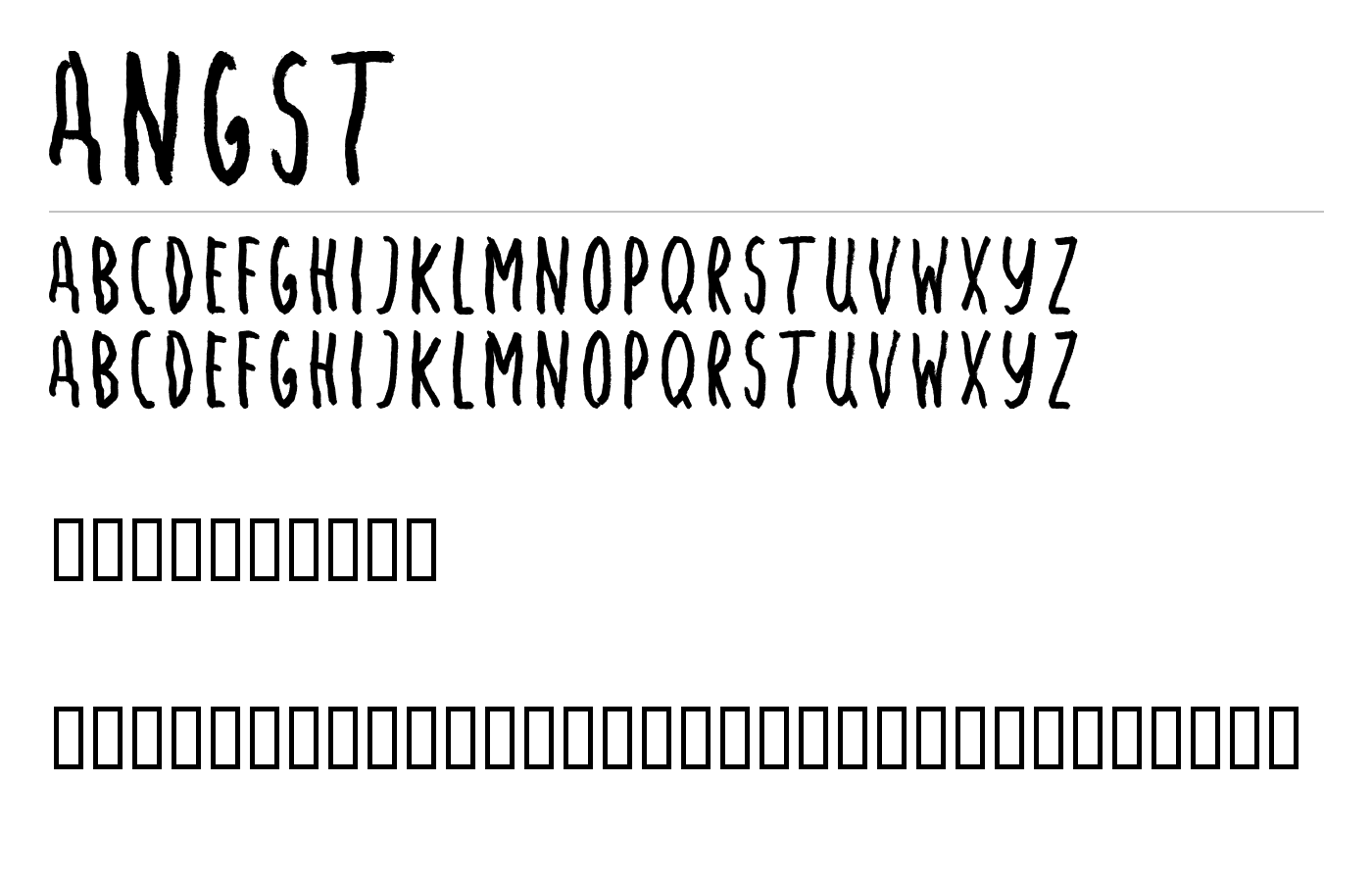
Angst Font is a narrow, hand-drawn sans serif typeface with a rough, organic texture that gives it a unique, expressive feel. Its irregular strokes and tall, condensed letterforms convey a raw, edgy personality, making it perfect for creative projects that aim to evoke emotion or a sense of urgency. This font works well in posters, branding, and expressive headlines where a bold, individualistic style is desired.
Angst Font
About Angst Font